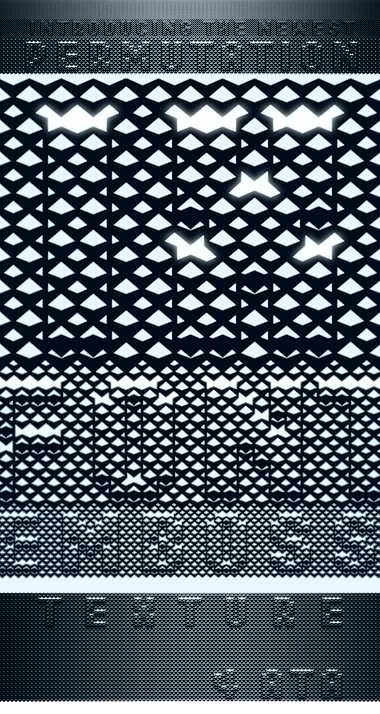
• Permutation IX: octahedral totem emboss on raised text achieved through 1/4 brick stagger of similar custom composite.
Permutation: The act of changing the arrangement of a given number of elements.
One font, two different brick combinations.
Picking any two bricks from the 169 available gives a total possible combinations of 14196 (169C2) different fonts. Counting a certain kinds of bricks as one--all four 45degree, for instance--gives 36 unique bricks, resulting in 630 (36C2) unique combinations or fonts.
In this font, if the bricks are swapped with each other, the result will be a different font. Hence order of the bricks matter. In which case, nCr (combinations) is not the right choice. What's needed is nPr (permutations). 169P2 gives 28392 permutations and a 36P2 gives 1260 permutations.
So, at a minimum, 1260 fonts are possible with the current implementation of FontStruct, with just this particular layout of bricks. This whole permuatation thing is so fun and easy to play around with. The original fs Permutation series worked with just the bricks that were available by default. Since then, the FontStructor has evolved, allowing for, in part, custom bricks. This new permutation was not possible before. This one is created just to show that custom bricks can be dragged and dropped on top of the existing ones replacing the standard bricks. The bricks used here are [edit:1/4 brick staggered identical custom composites] .
Sso freakin' awesome! Like chainmail or carbon fibre or something sci-fi. lllove ett.
You should behance it and write a one page story around the text-ure.
Absolutely stunning. I could imagine the application of this pattern and letters in architecture (e.g.: façade on a building project in Dubai). 10/10
Nice texture(s) 8-)
WHAT?!